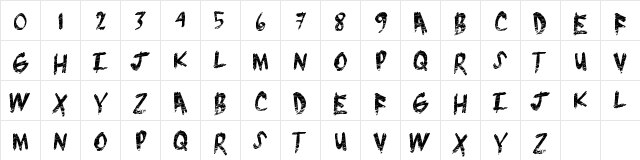
Complete BrushGrunge Regular glyph index. Displaying only characters natively supported by BrushGrunge Regular font.
BrushGrunge embraces imperfection - its rough, textured character adds raw authenticity to designs that want to feel lived-in and unconventional.
Pro Tip: Use BrushGrunge at larger sizes where the texture and irregularity of each letterform can be clearly seen - it loses its character at small sizes.